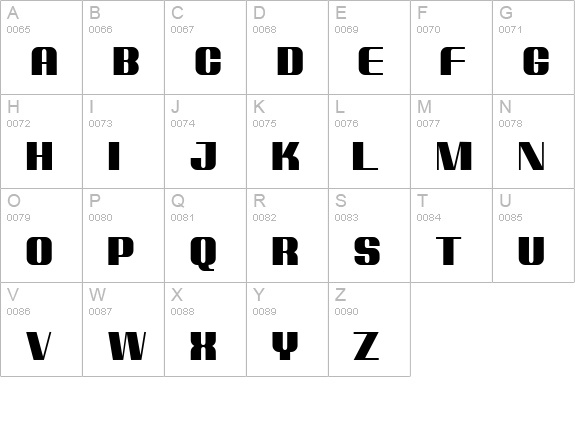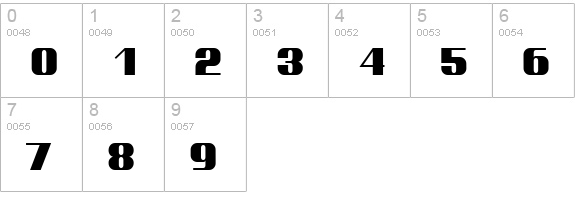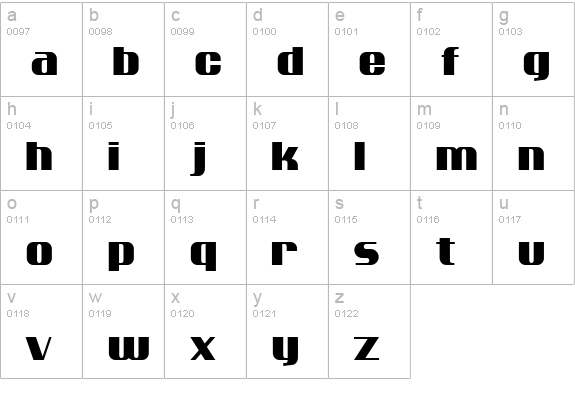
Ptarmigan Font Details
Ptarmigan is a modern and elegant font that exudes sophistication and style. With its clean lines and versatile design, Ptarmigan is perfect for a wide range of projects, from branding to editorial design. This typeface strikes the perfect balance between modernity and classic elegance, making it a versatile choice for any designer. What sets Ptarmigan apart is not just its aesthetic appeal, but also the fact that it is available for free download at FontsMarket.com. This means that you can access this high-quality font without any cost, making it a valuable addition to your font library. Whether you are working on a personal project or a client's design, Ptarmigan offers a touch of sophistication that will elevate your work to the next level. Download Ptarmigan for free today at FontsMarket.com and add a touch of elegance to your next design project.